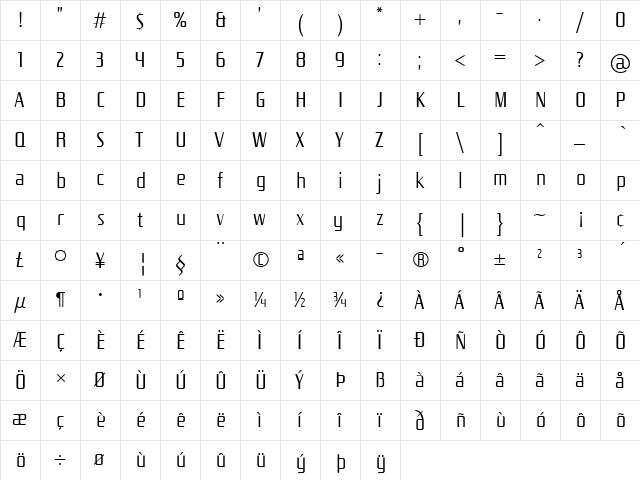
General Medium
Design Context for General Typeface
General takes a measured approach to typography — its balanced proportions and neutral character make it a reliable workhorse for both digital and print work.
Pro Tip: Pair General with a font of contrasting weight or personality to build a more expressive typographic hierarchy.